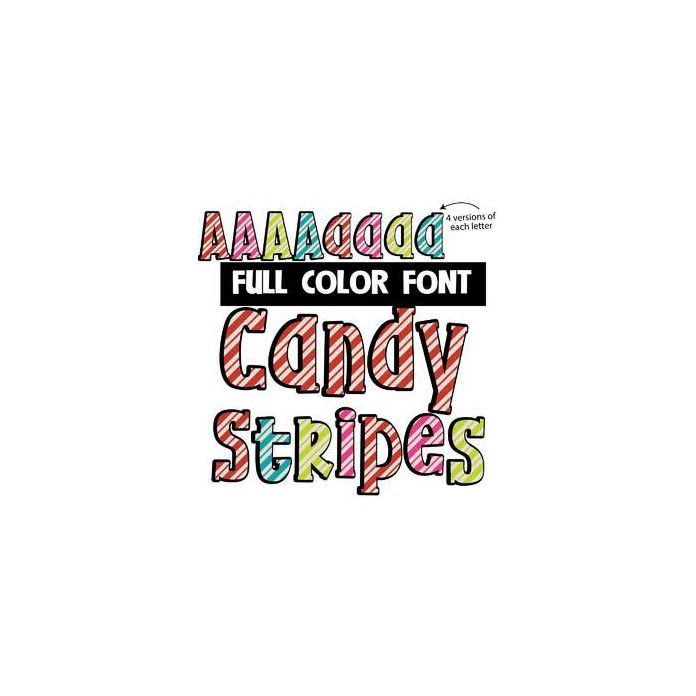
This full-color font features colorful diagonal stripes. The primary upper and lowercase are red but pink, green, and teal are also available in both cases as alternates that you can access through your system's character map.